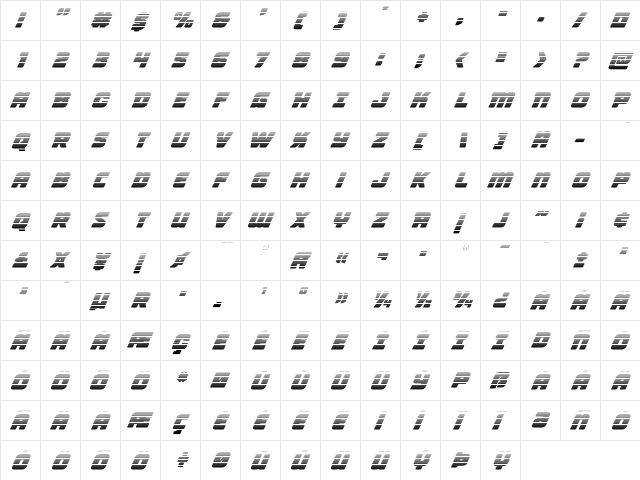
Victory Comics Gradient Italic Italic Font Preview
Design Context for Victory Comics Gradient Italic Typeface
Victory Comics Gradient Italic trades formality for fun, with bouncy, characterful letterforms that bring warmth and energy to any project. Its italic angle brings a sense of urgency and motion to the letterforms.
Font Pairing: Pairs well with a rounded or humanist sans for body copy, maintaining the friendly tone without relying on Victory Comics Gradient Italic to carry extended reading.
Pro Tip: Use Victory Comics Gradient Italic at larger display sizes where its expressive character can land. Pair with a clean, simple sans for body copy to maintain readability.